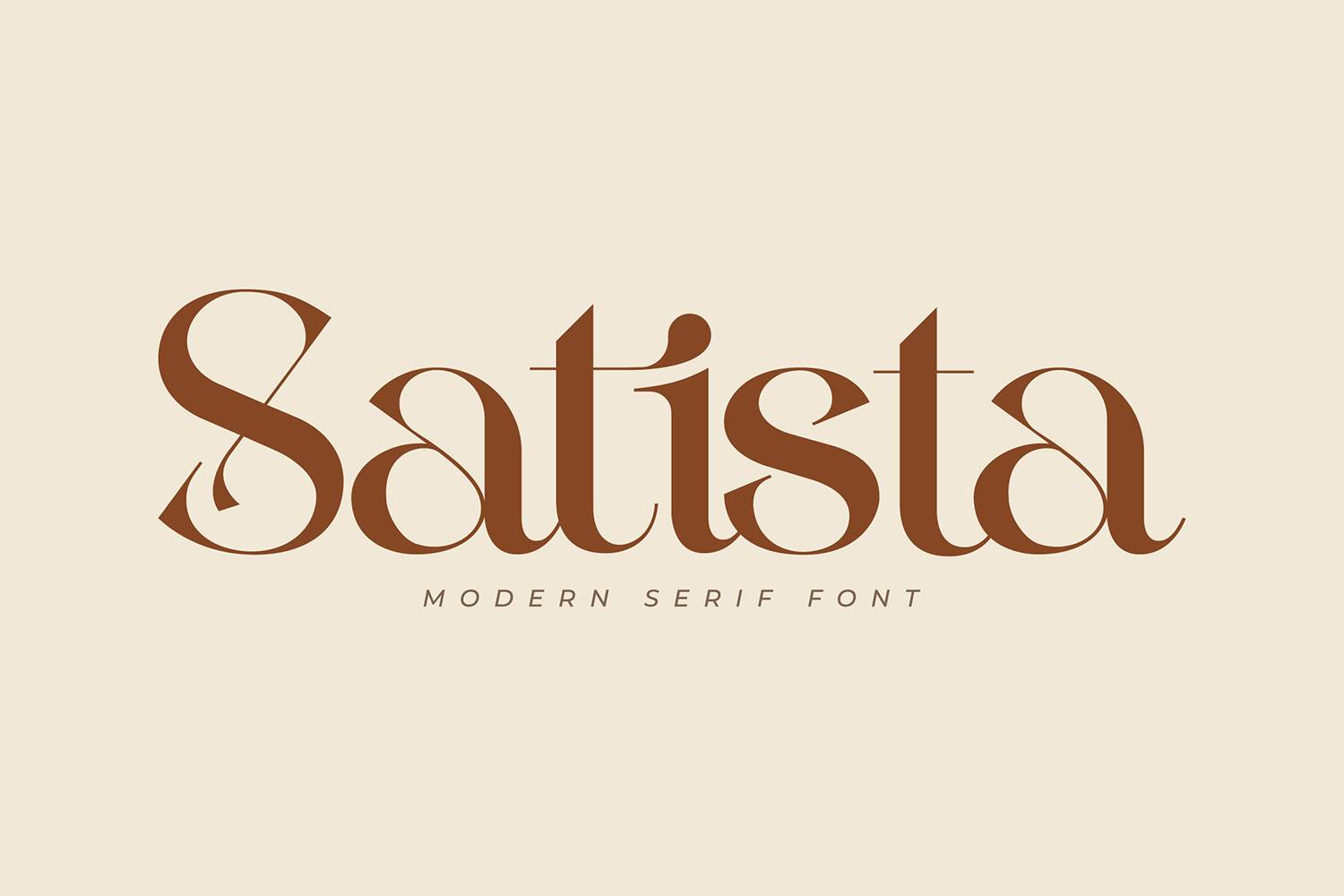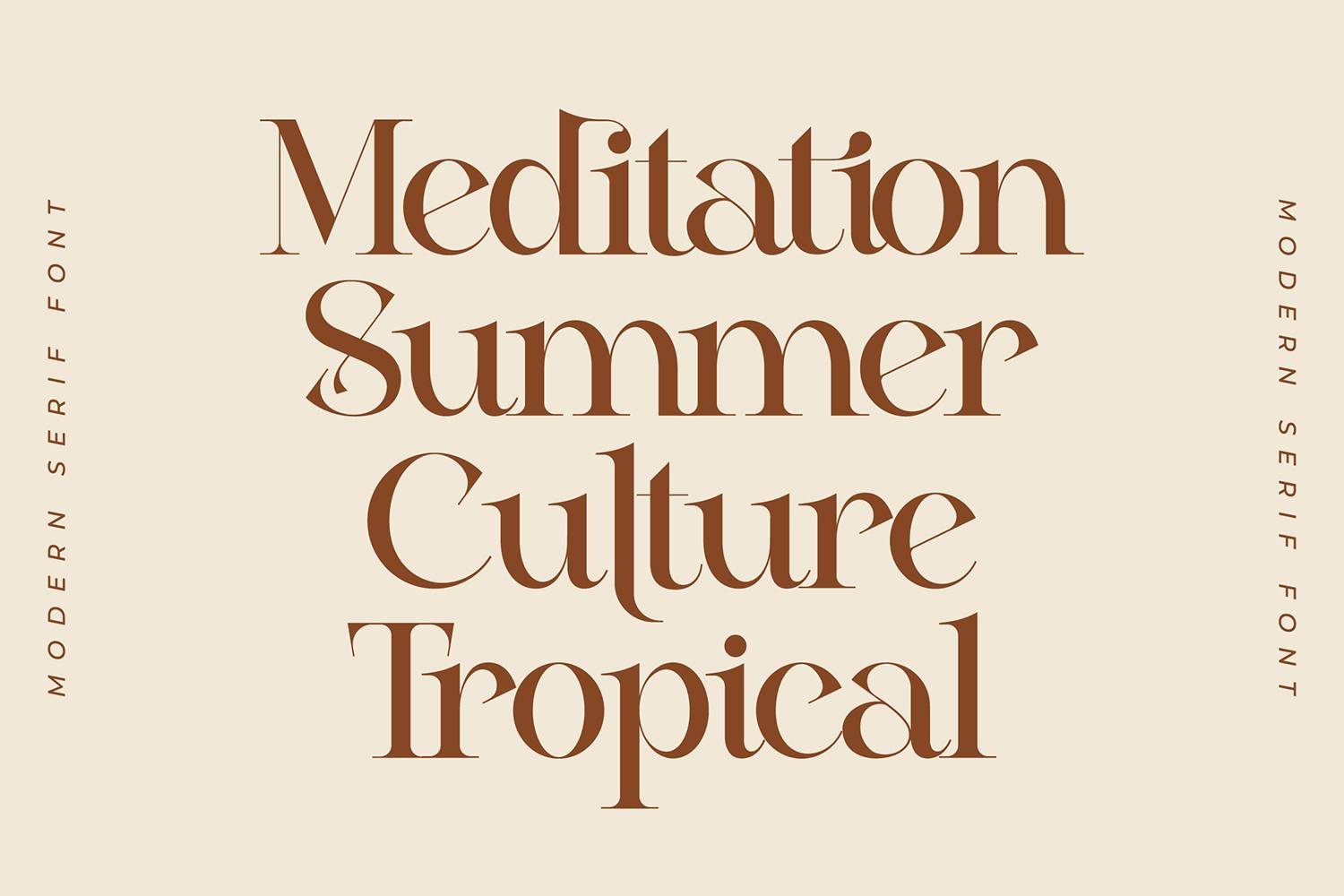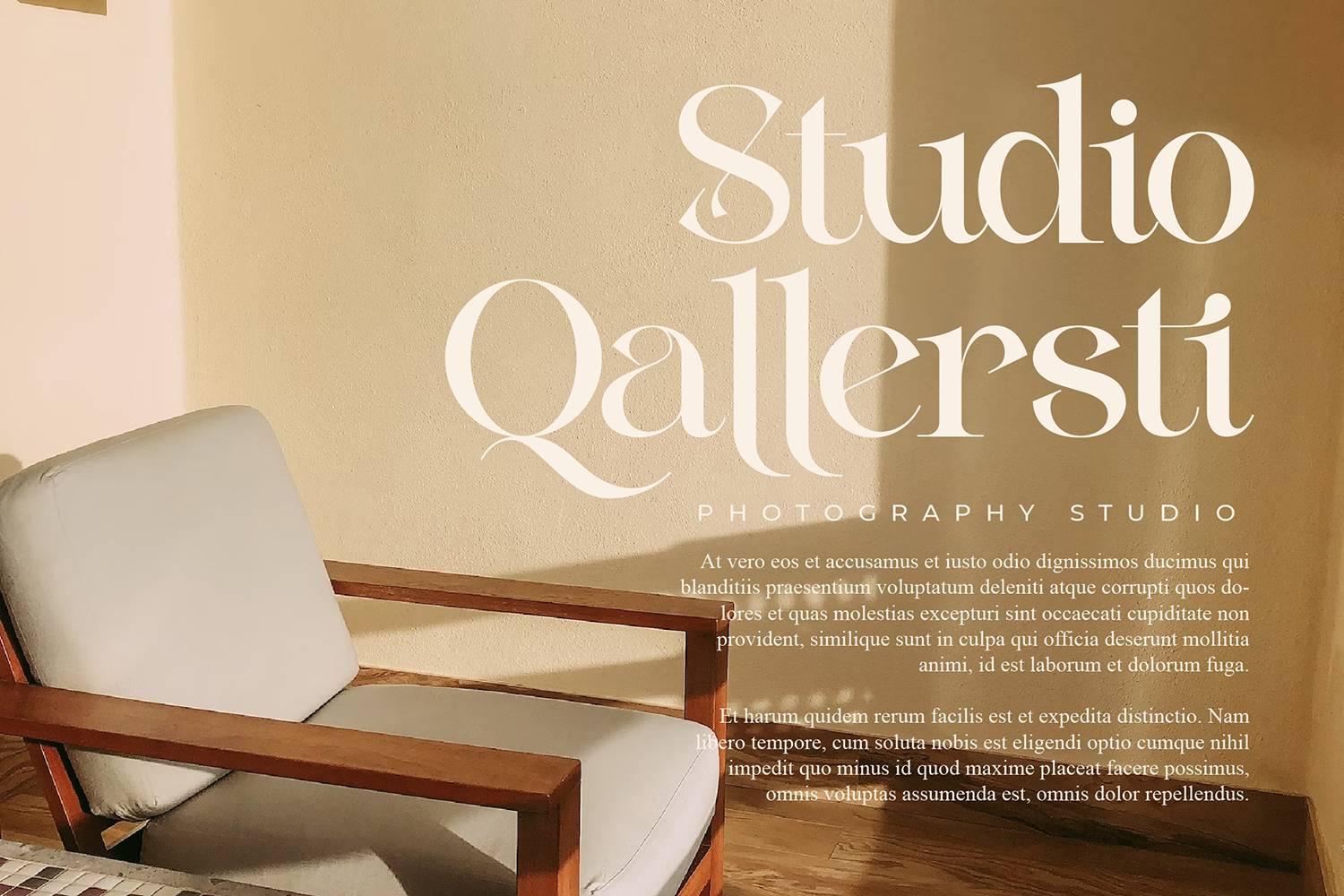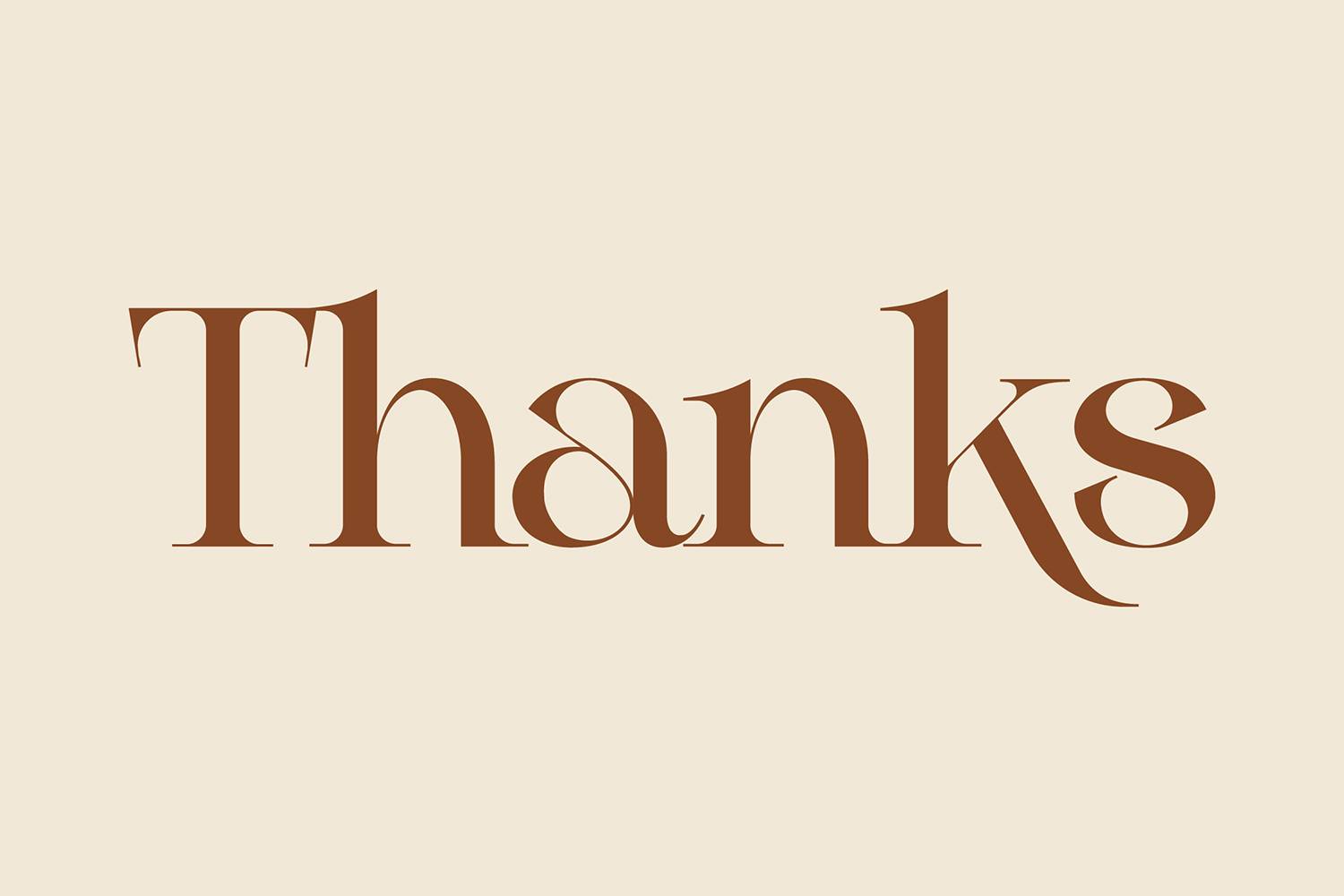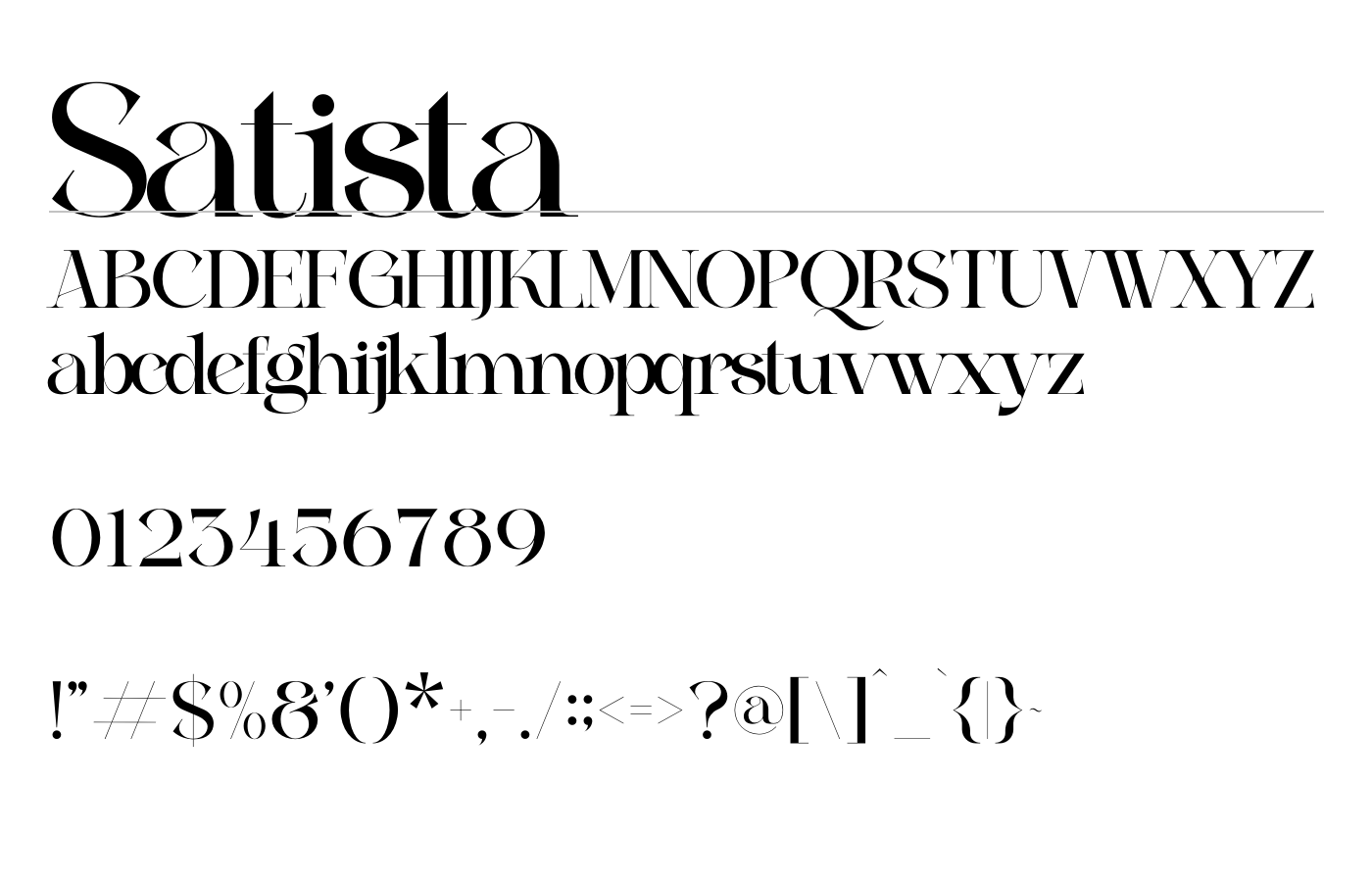
Satista is an elegant serif font characterized by its high contrast between thick and thin strokes and sharp, delicate serifs that give it a refined, modern feel. Its tall x-height and unique letterforms, like the distinctive tail on the Q and the stylized ampersand, make it perfect for luxury branding, editorial headlines, and sophisticated packaging. This font combines classic serif sophistication with a contemporary twist, ideal for projects seeking a stylish and upscale look.
Satista Font
About Satista Font